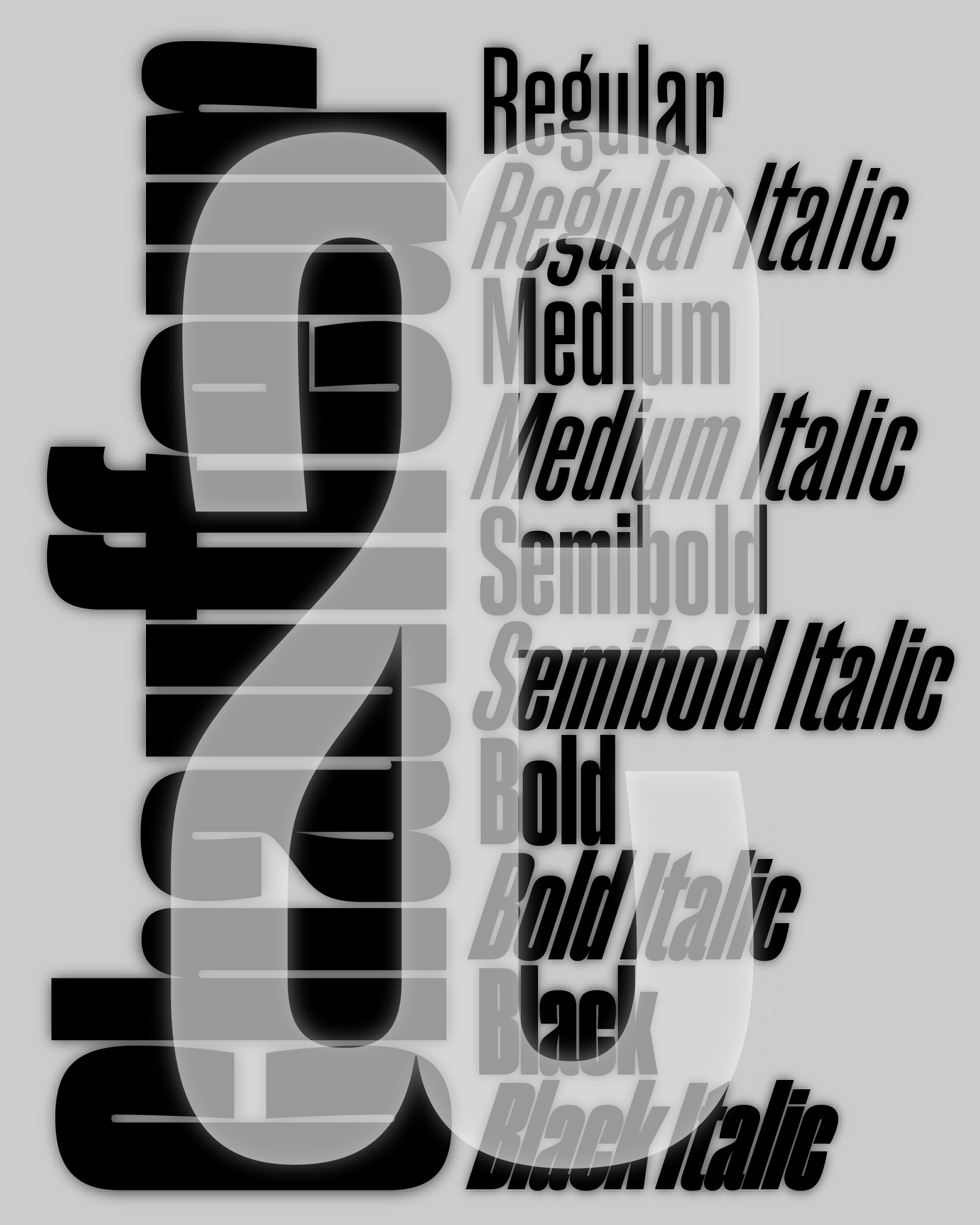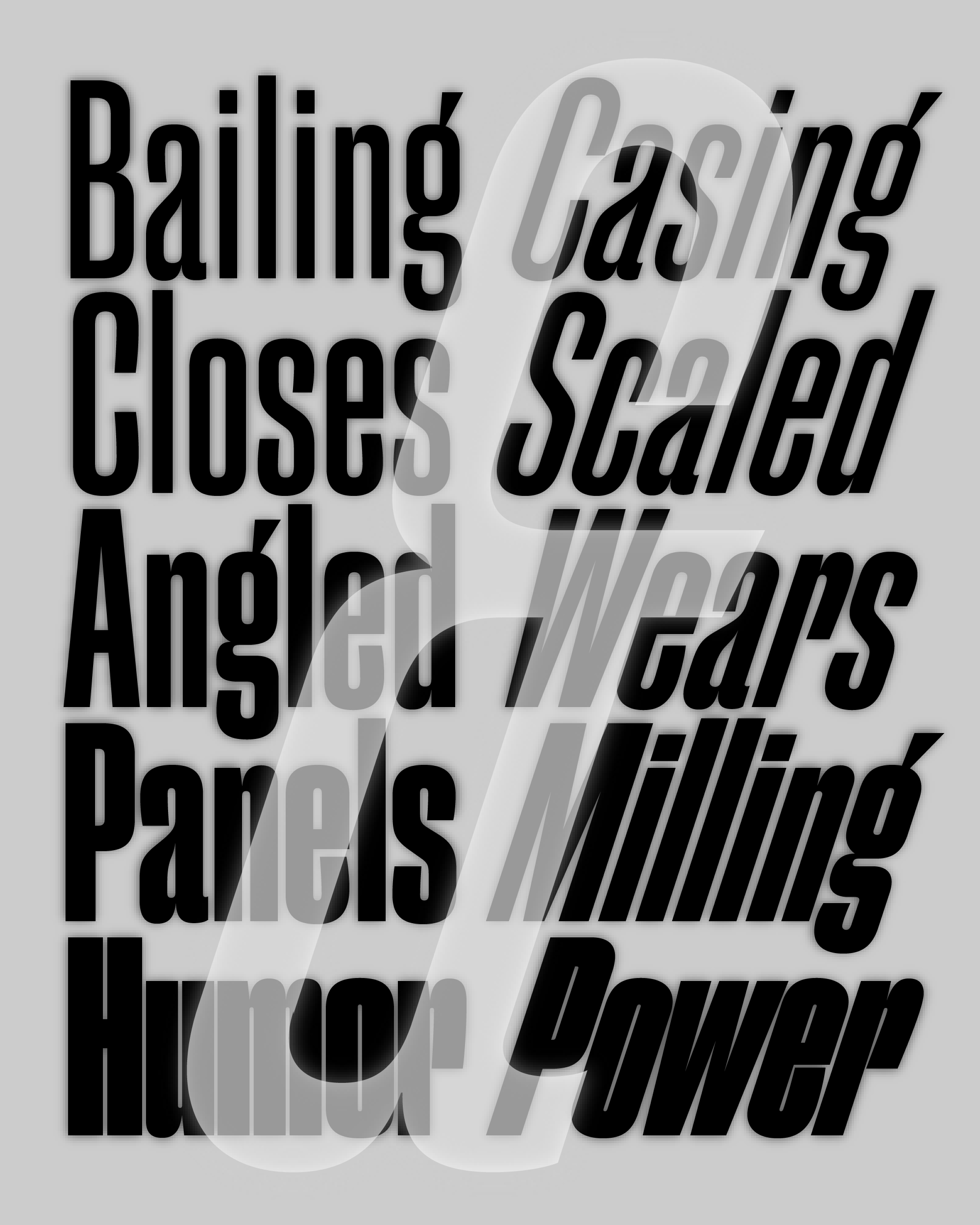
Foundry:
Domicile Foundry
Released:
January 20, 2026
Styles:
11
Category:
sans-serif
Tone:
formal, casual
Use size:
large, medium
Width:
narrow
Weight:
regular, medium, bold
Contrast:
low
Other:
italic
About the typeface
Chauffeur builds on the clunky and warm characteristics of condensed British grotesques published by Caslon and Stephenson Blake type foundries during late 19th and early 20th century. Departing from the sources, Chauffeur leaps towards different kind of industrial aesthetics, those of architectural and rigid with almost modular precision, expressed by Deutsches Institut für Normung (DIN) couple of decades later.